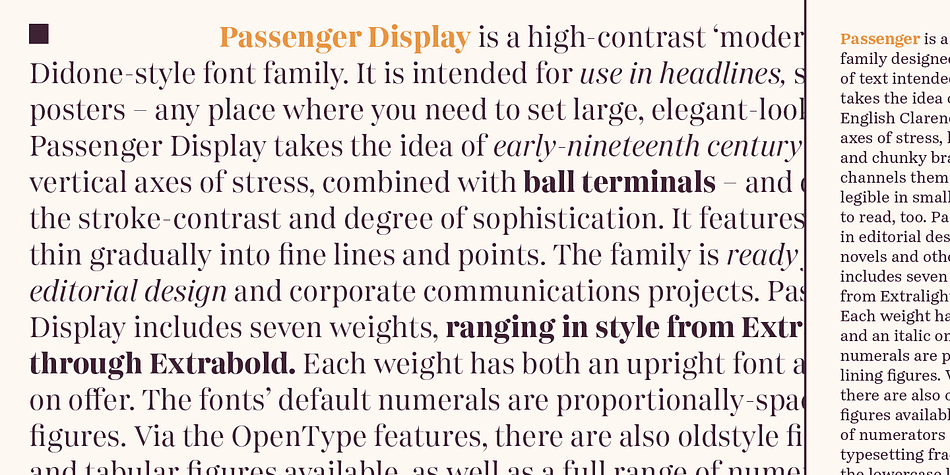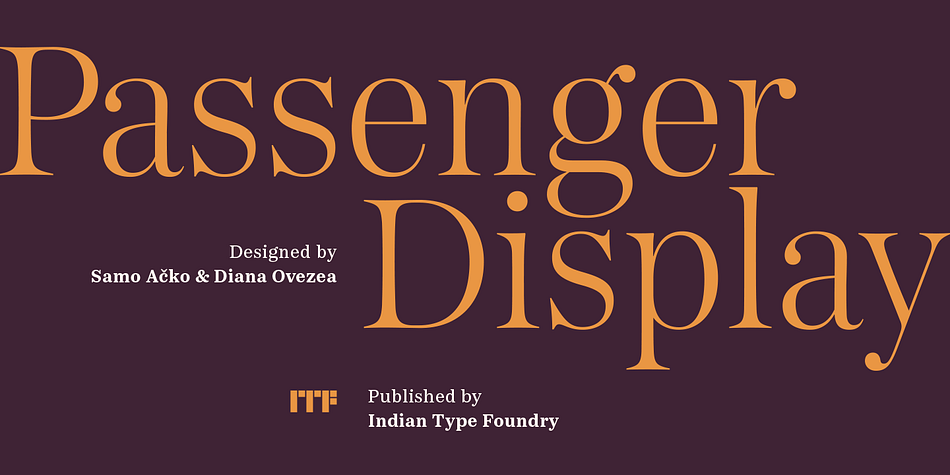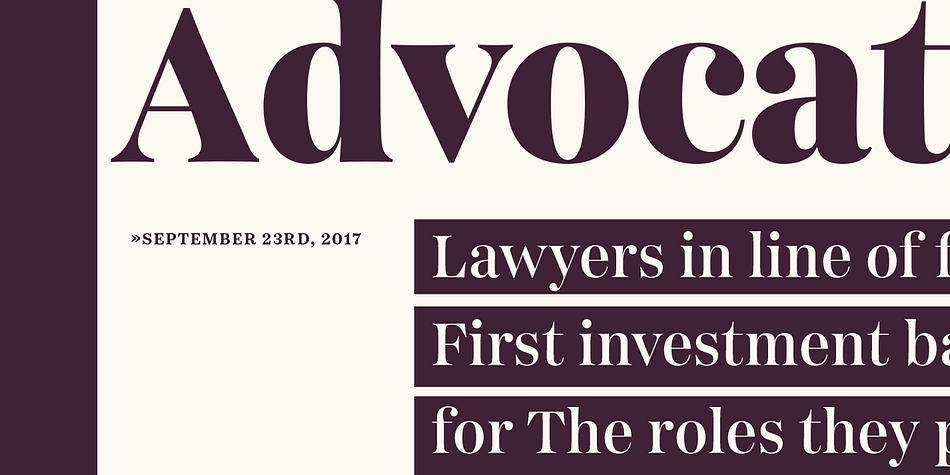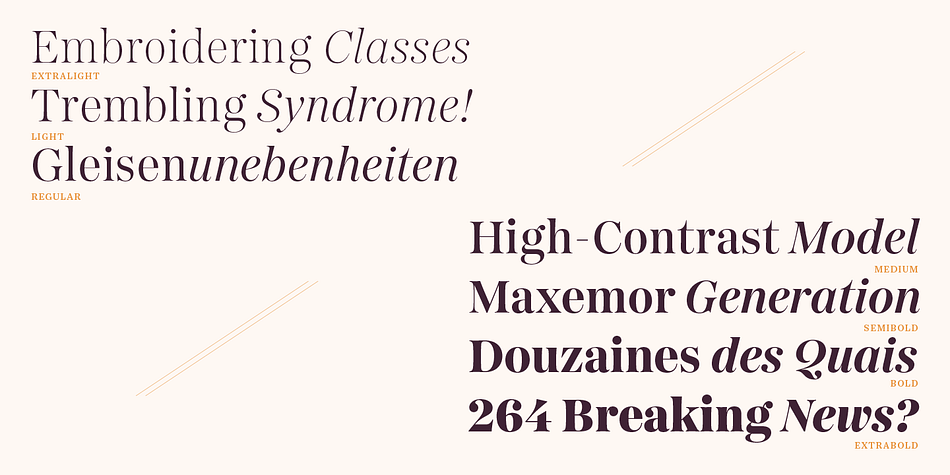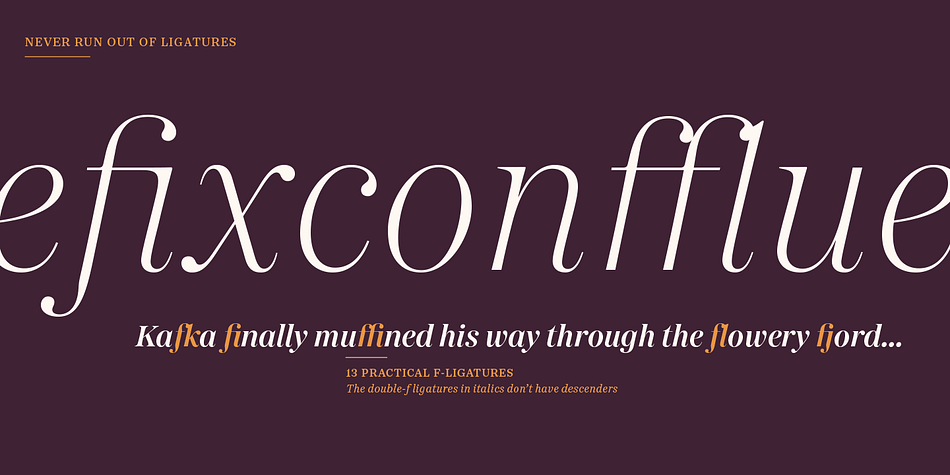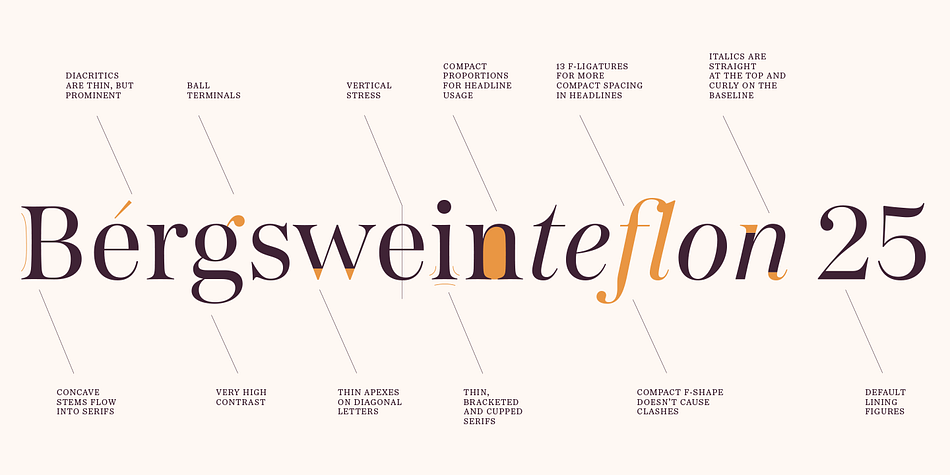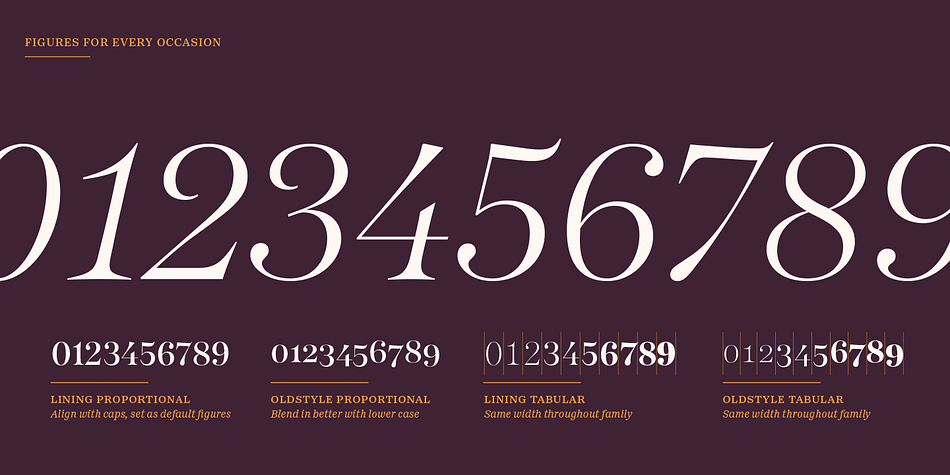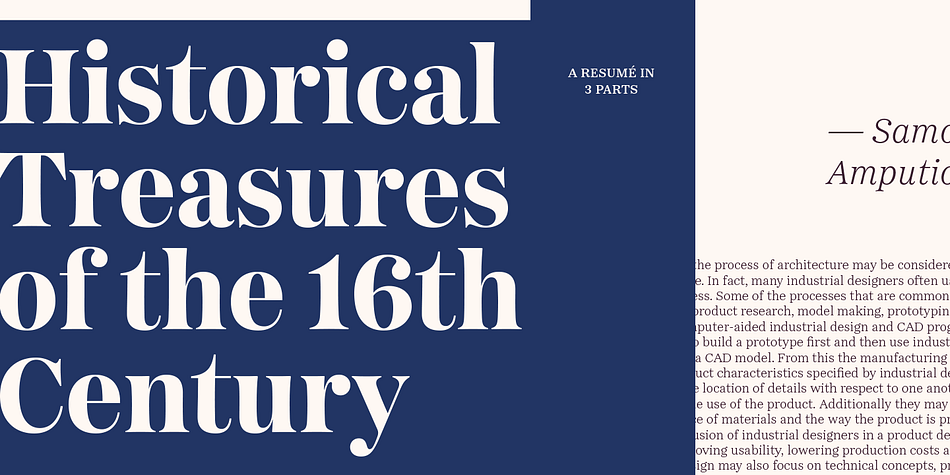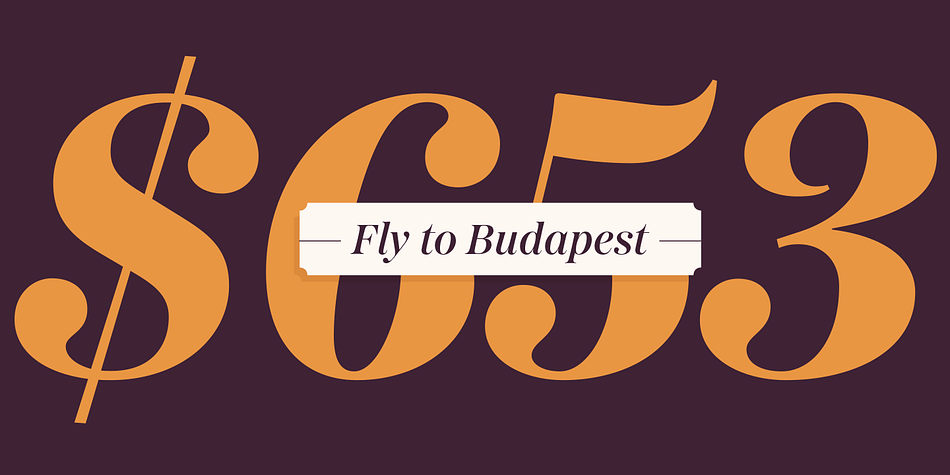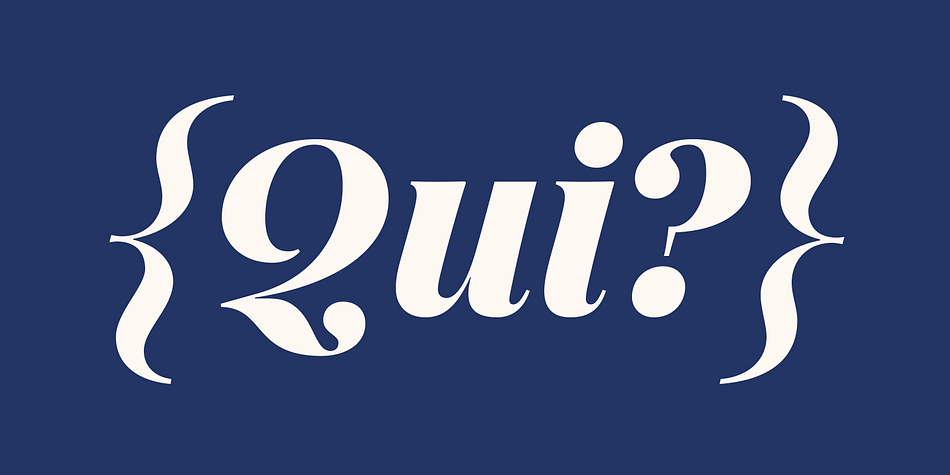
Designed by Diana Ovezea, Passenger Display is a display serif font family. This typeface has fourteen styles and was published by Indian Type Foundry.
Passenger Display is a high-contrast ‘modern’ or Didone-style font family. It is intended for use in headlines, signs, or posters – any place where you need to set large, elegant-looking type. Passenger Display takes the idea of early-nineteenth century types – vertical axes of stress, combined with ball terminals – and dials up the stroke-contrast and degree of sophistication. It features serifs that thin gradually into fine lines and points. The family is ready for use in editorial design and corporate communications projects. Passenger Display includes seven weights, ranging in style from Extralight through Extrabold. Each weight has both an upright font and an italic on offer. The fonts’ default numerals are proportionally-spaced lining figures. Via the OpenType features, there are also oldstyle figures and tabular figures available, as well as a full range of numerators and denominators for typesetting fractions. The ascenders of the lowercase letters rise up above the tops of the capitals. In the upright fonts, the ‘a’ and the ‘g’ are double-storied. In the italics, they are single-storied. Each font includes 13 f-ligatures. Passenger Display has a companion typeface available for larger-sized applications: Passenger Text. Passenger Display and Passenger Text can be used together to powerful effect in magazine layouts, or in exhibition design graphics. The Passenger families were designed by Diana Ovezea and Samo Ačko.
Foundry | Indian Type Foundry |
Designer | Diana Ovezea |